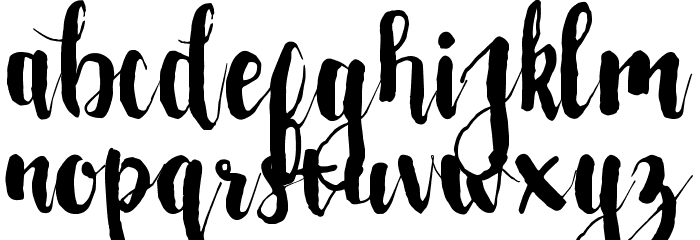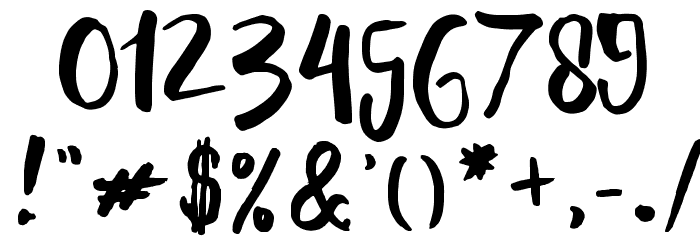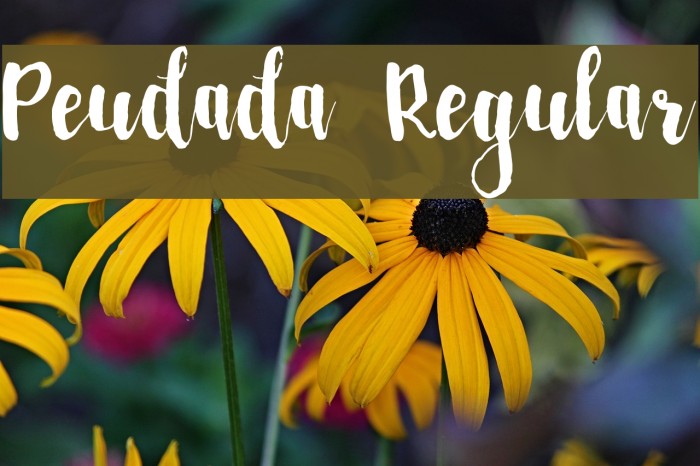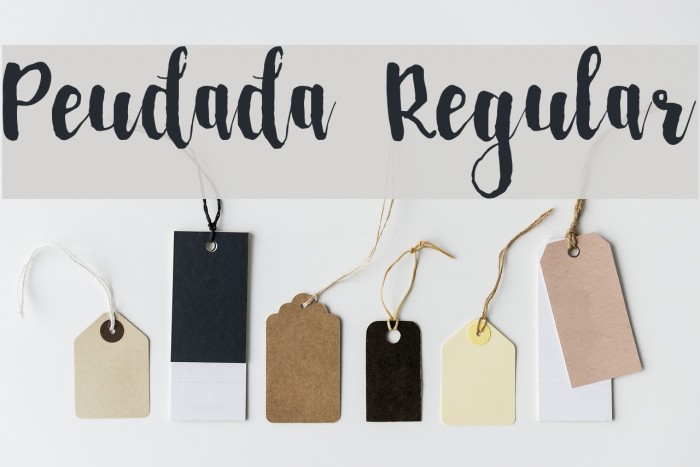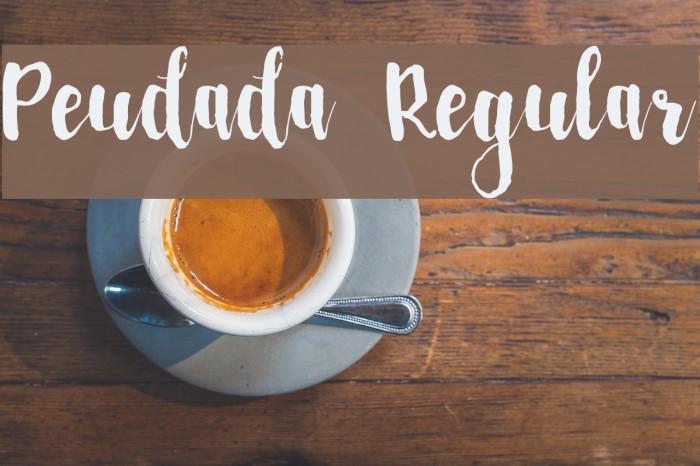
Peudada Regular Font
This font features a dynamic and expressive handwritten style, characterized by bold, sweeping strokes and a slightly irregular baseline that adds to its charm. The uppercase letters are bold and assertive, while the lowercase letters maintain a fluid and connected appearance, reminiscent of brush calligraphy. The numerals are equally bold, ensuring they stand out in any composition. Special characters are crafted with the same attention to detail, making them blend seamlessly with the rest of the font. This font's unique style is perfect for projects that require a personal touch or a creative flair.
A bold, expressive handwritten font with dynamic strokes and a brush-like appearance.
- Proposed Projects: Ideal for greeting cards, invitations, branding, and artistic posters.
- Use Case: Logos, Headlines, Artistic projects